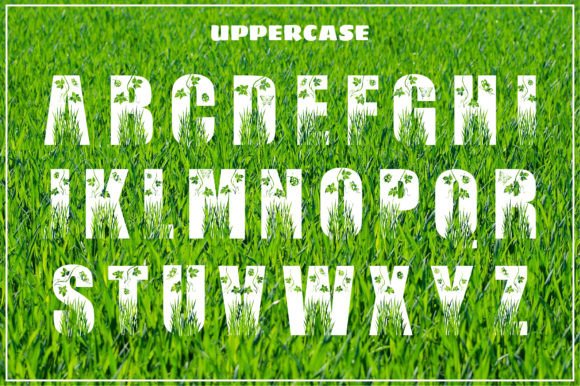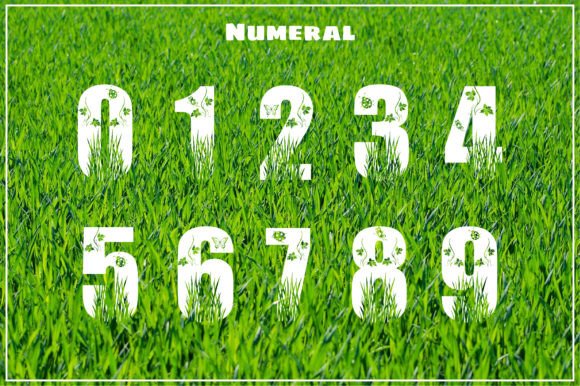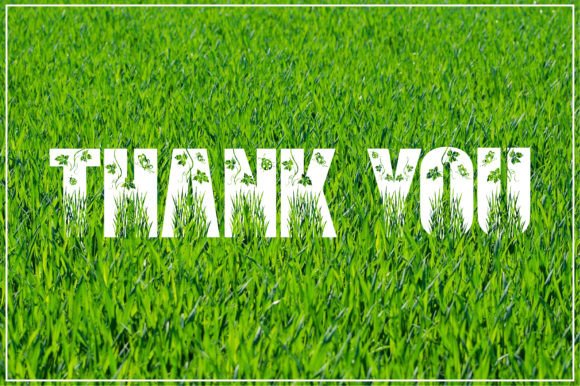
Introducing Grass Font: The Ultimate Display Font for Crafty Ideas
Are you tired of using the same old fonts for your design projects? Look no further than the Grass Font, a thick lettered and incredibly unique display font that’s sure to brighten up your crafty ideas. In this article, we’ll take a closer look at the Grass Font, its features, and how you can use it to take your designs to the next level.
What is Grass Font?
Grass Font is a display font that’s designed to make a statement. With its thick, bold letters and unique texture, it’s perfect for adding a touch of personality to your designs. Whether you’re working on a logo, a poster, or a social media graphic, the Grass Font is sure to grab attention and leave a lasting impression.
Key Features of Grass Font
- Thick Lettered: The Grass Font features thick, bold letters that are perfect for creating eye-catching headlines and titles.
- Unique Texture: The font has a unique texture that gives it a natural, organic feel.
- Versatile: The Grass Font can be used for a wide range of projects, from logos and posters to social media graphics and more.
- Easily Readable: Despite its bold and unique design, the Grass Font is still easily readable, making it perfect for use in a variety of contexts.
How to Use Grass Font in Your Designs
So, how can you use the Grass Font in your designs? Here are a few ideas to get you started:
- Logos: Use the Grass Font to create a bold and eye-catching logo for your business or brand.
- Posters: Add a touch of personality to your posters with the Grass Font, perfect for advertising events, promotions, or products.
- Social Media Graphics: Use the Grass Font to create eye-catching social media graphics that will help your posts stand out.
- Crafting Projects: The Grass Font is perfect for crafty ideas, such as making signs, banners, or other DIY projects.
Tips for Getting the Most Out of Grass Font
Here are a few tips for getting the most out of the Grass Font:
- Experiment with Colors: The Grass Font looks great in a variety of colors, so don’t be afraid to experiment and find the perfect hue for your design.
- Play with Texture: The unique texture of the Grass Font is one of its standout features, so try playing with different textures to add depth and interest to your design.
- Use it as a Statement Piece: The Grass Font is designed to make a statement, so use it as a focal point in your design and build the rest of your layout around it.
| Font Name | Grass Font |
| Author | Apple Craft |
In conclusion, the Grass Font is a unique and versatile display font that’s perfect for adding a touch of personality to your designs. With its thick, bold letters and unique texture, it’s sure to grab attention and leave a lasting impression. Whether you’re a designer, crafter, or DIY enthusiast, the Grass Font is a great addition to your font library.